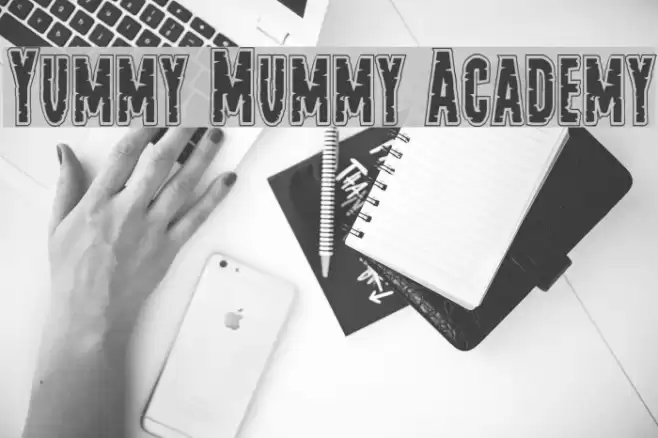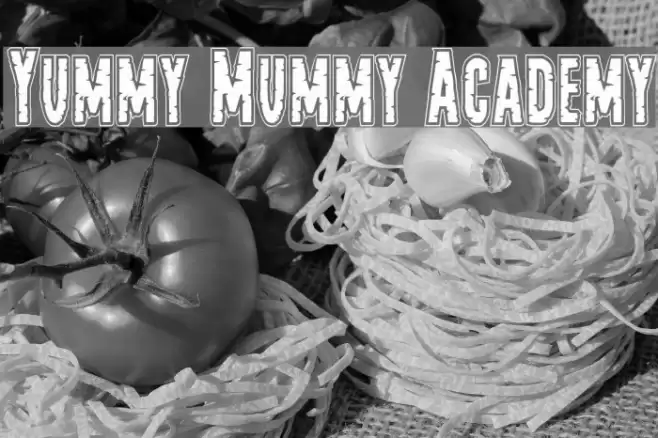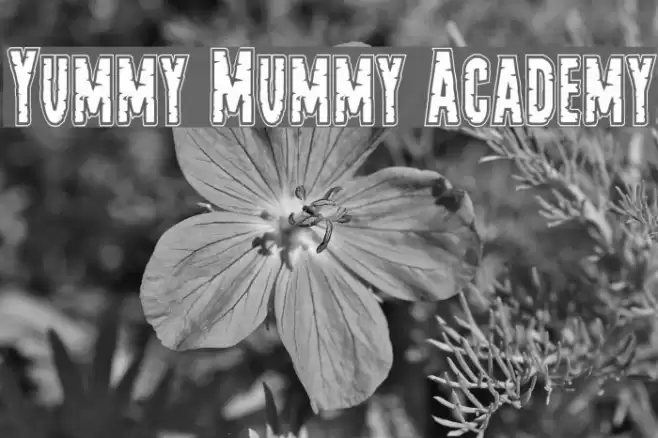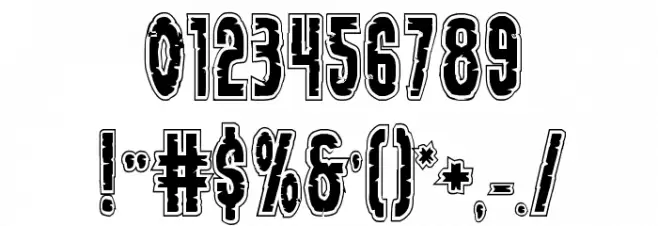
Yummy Mummy Academy Font
Yummy Mummy Academy Description
This font features a bold and rugged style with a distressed, textured appearance that gives it a vintage and worn-out look. The uppercase letters are prominent and commanding, while the lowercase letters maintain the same boldness, ensuring consistency throughout. Numbers and special characters are equally bold, making them stand out. The font's unique texture adds a layer of depth and character, making it suitable for designs that require a strong, impactful presence. Its decorative nature makes it ideal for projects that aim to capture attention and convey a sense of nostalgia or ruggedness.
A bold, textured font with a vintage, distressed style from Uncategorized fonts.
- Proposed Projects: Ideal for posters, logos, headlines, and branding that require a bold, vintage look.
- Overall Style: Vintage